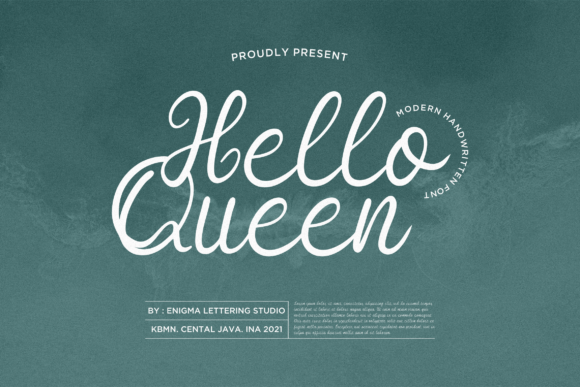
About Hello Queen Font
Hello Queen is a lovely and delicate script font that exudes elegance and class. This font was particularly crafted for those who need a beautiful and refreshing look to their designs.